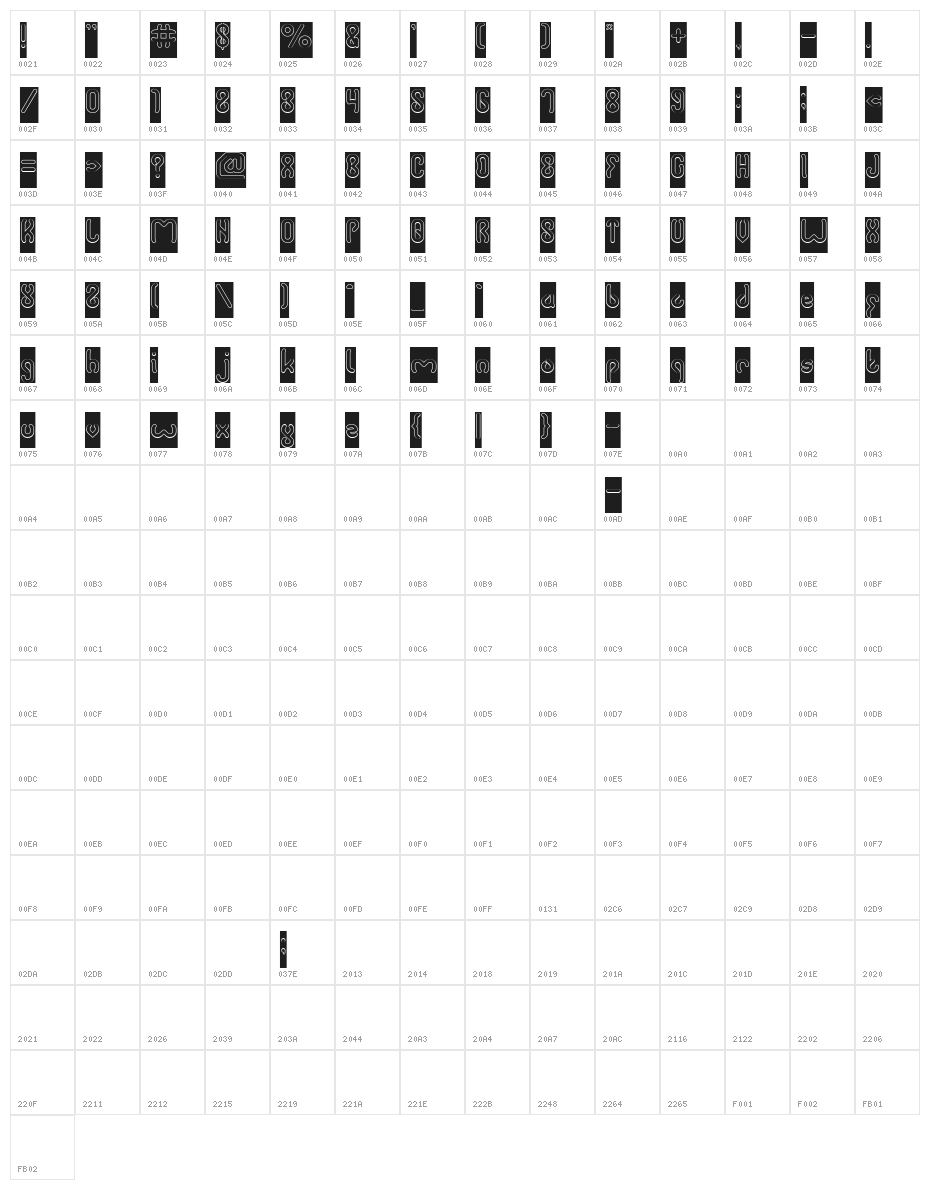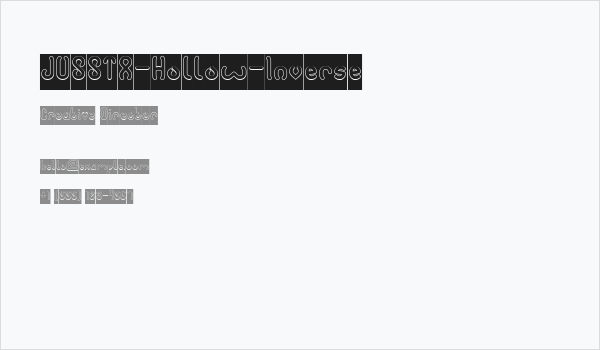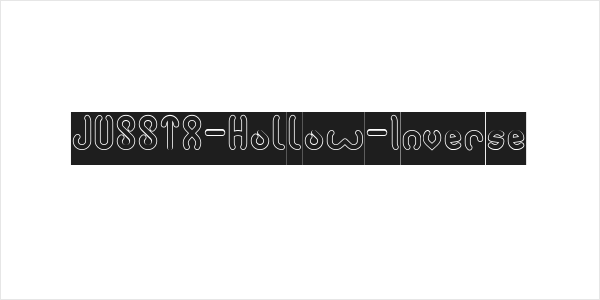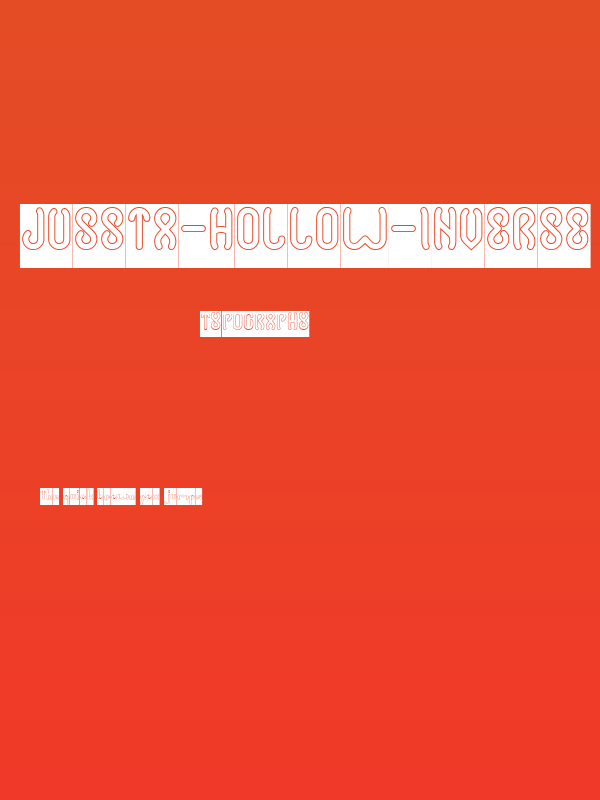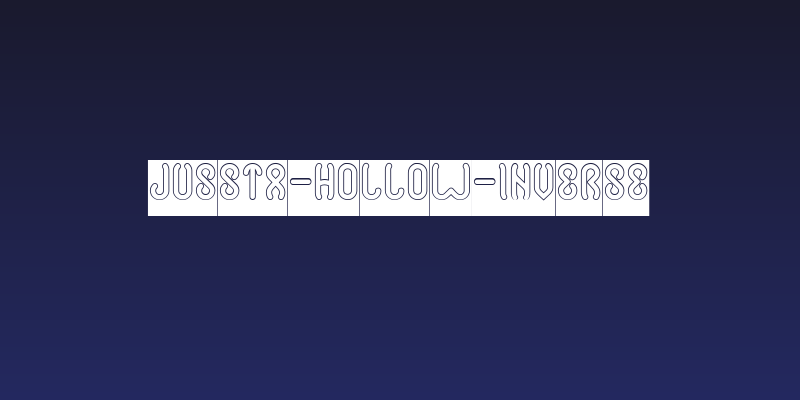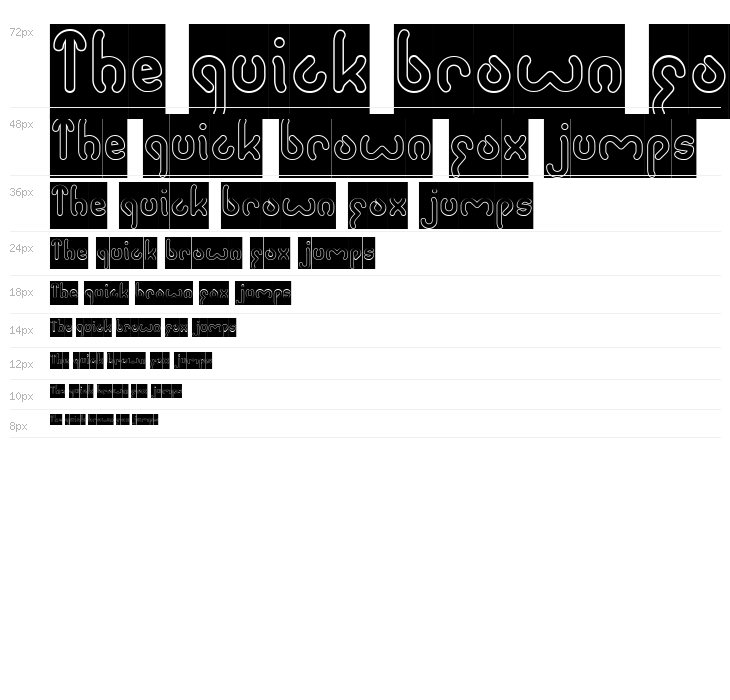
JUSSTA-Hollow-Inverse Font
JUSSTA-Hollow-Inverse Description
This font features a unique hollow design with an inverse style, creating a striking visual impact. The characters are outlined with a consistent stroke width, giving them a modern and futuristic appearance. The uppercase and lowercase letters maintain a cohesive style, with rounded edges and smooth curves that enhance readability. The numbers and special characters are designed to match the overall aesthetic, providing a uniform look across all elements. This font's hollow nature makes it ideal for projects that require a bold statement without overwhelming the viewer.
Proposed ProjectsIdeal for branding, posters, digital art, and any project needing a futuristic and bold aesthetic.